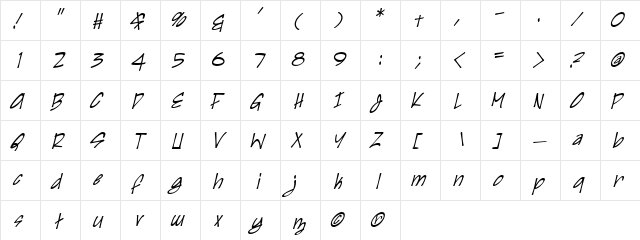
Irezumi Italic
Design Context for Irezumi Typeface
Irezumi is a composed and adaptable typeface that performs quietly and consistently across a wide range of design contexts. The dynamic lean of this cut emphasises speed and emphasis in any layout.
Pro Tip: Use Irezumi for emphasis, pull quotes, and subheadings where its slanted energy can add rhythm to the layout.